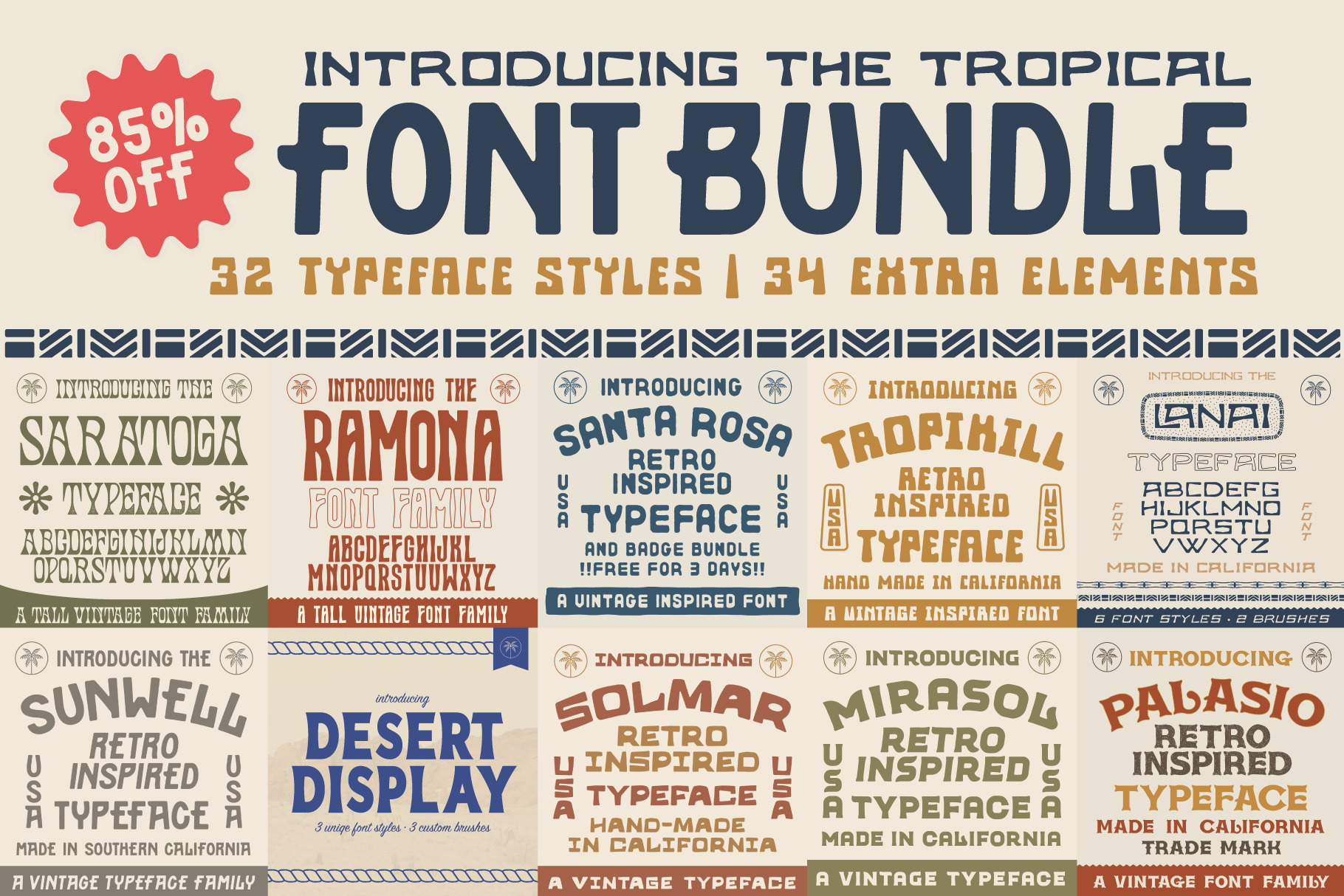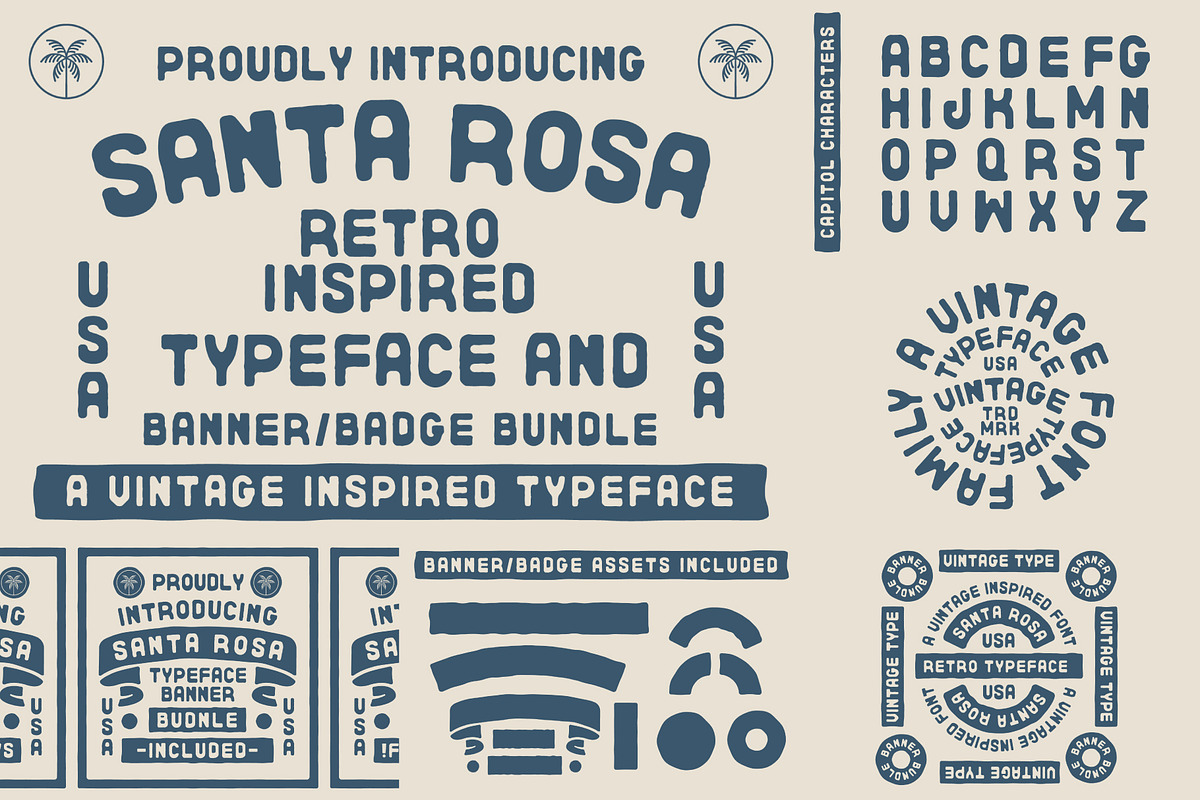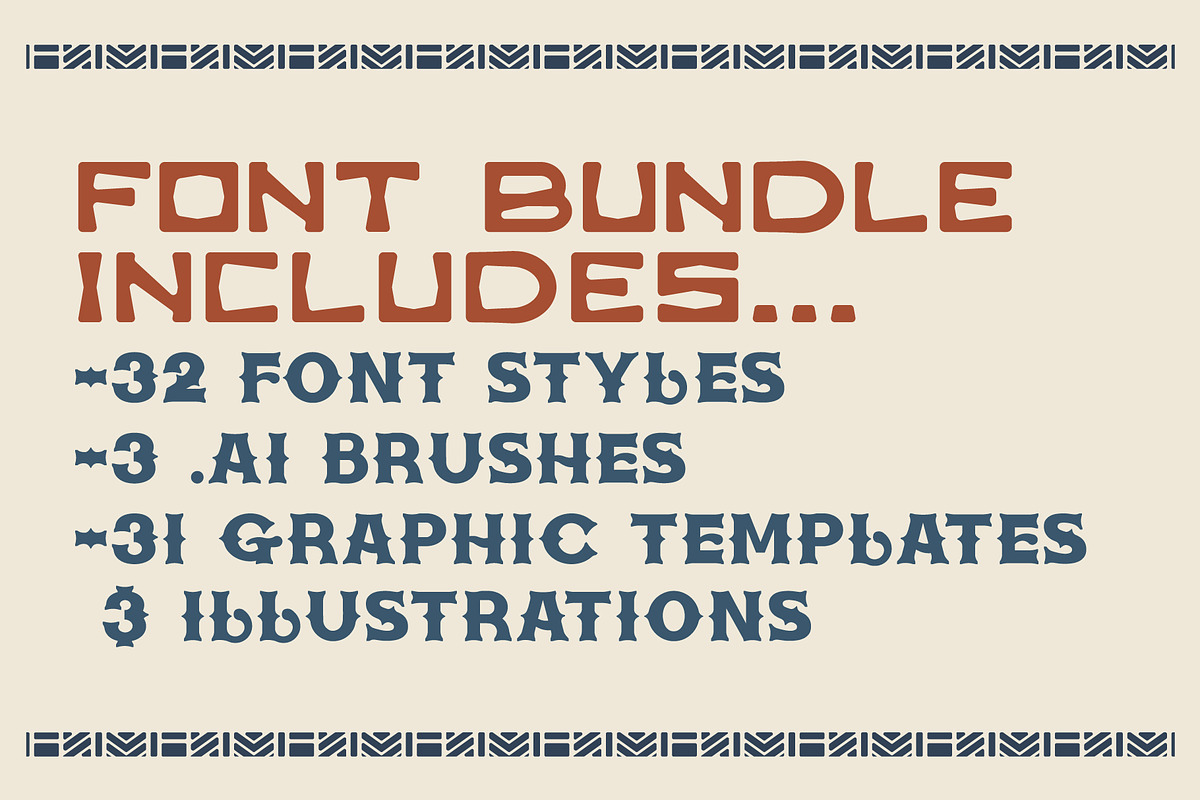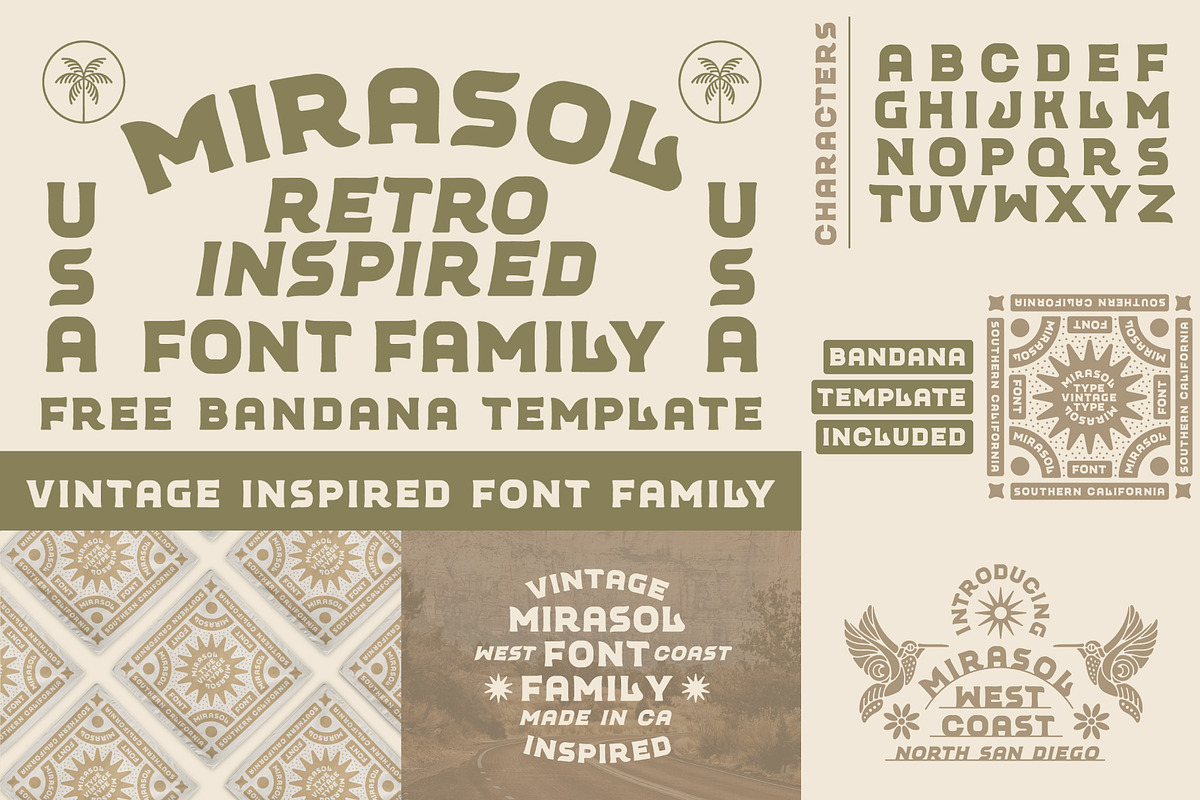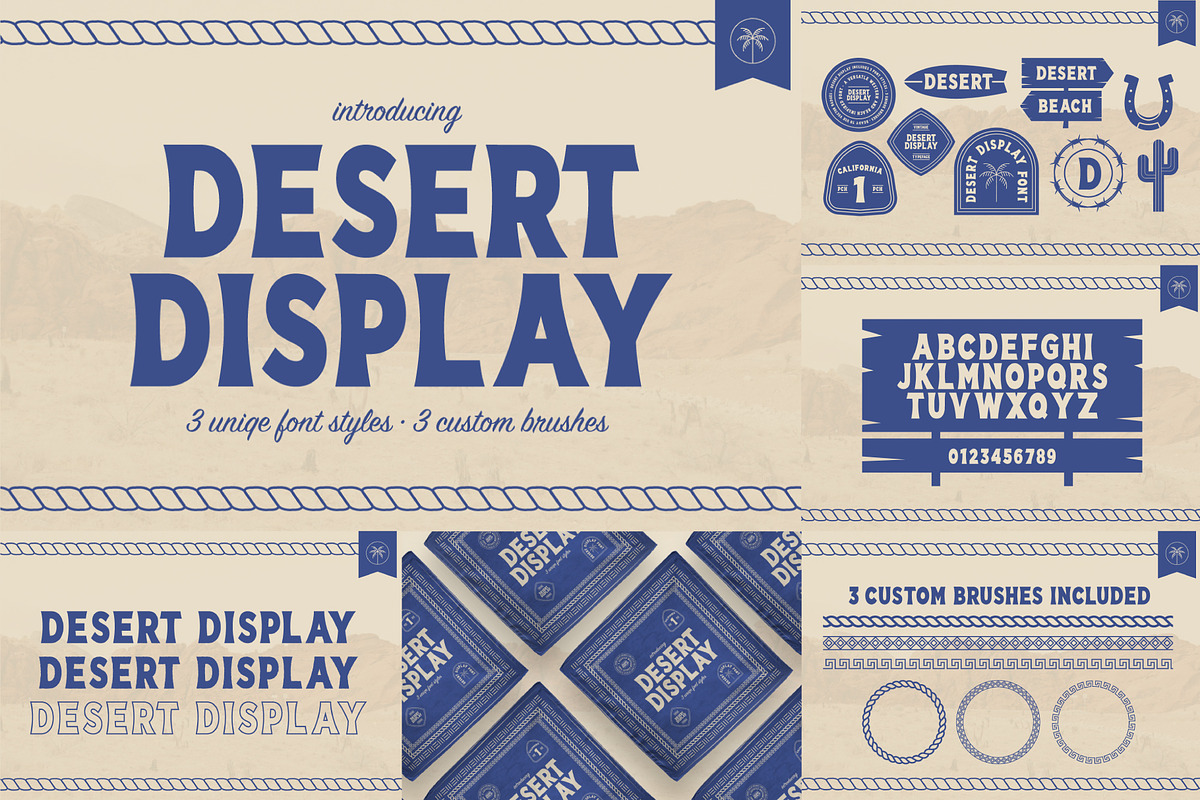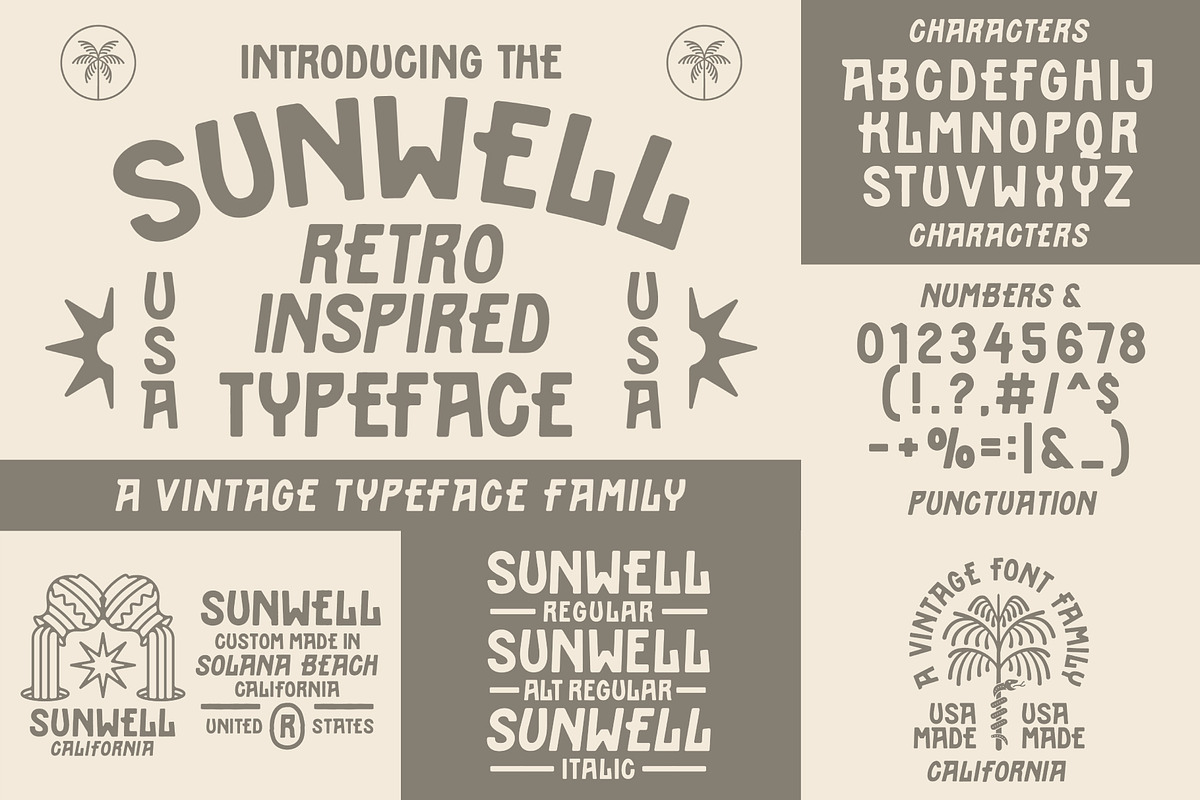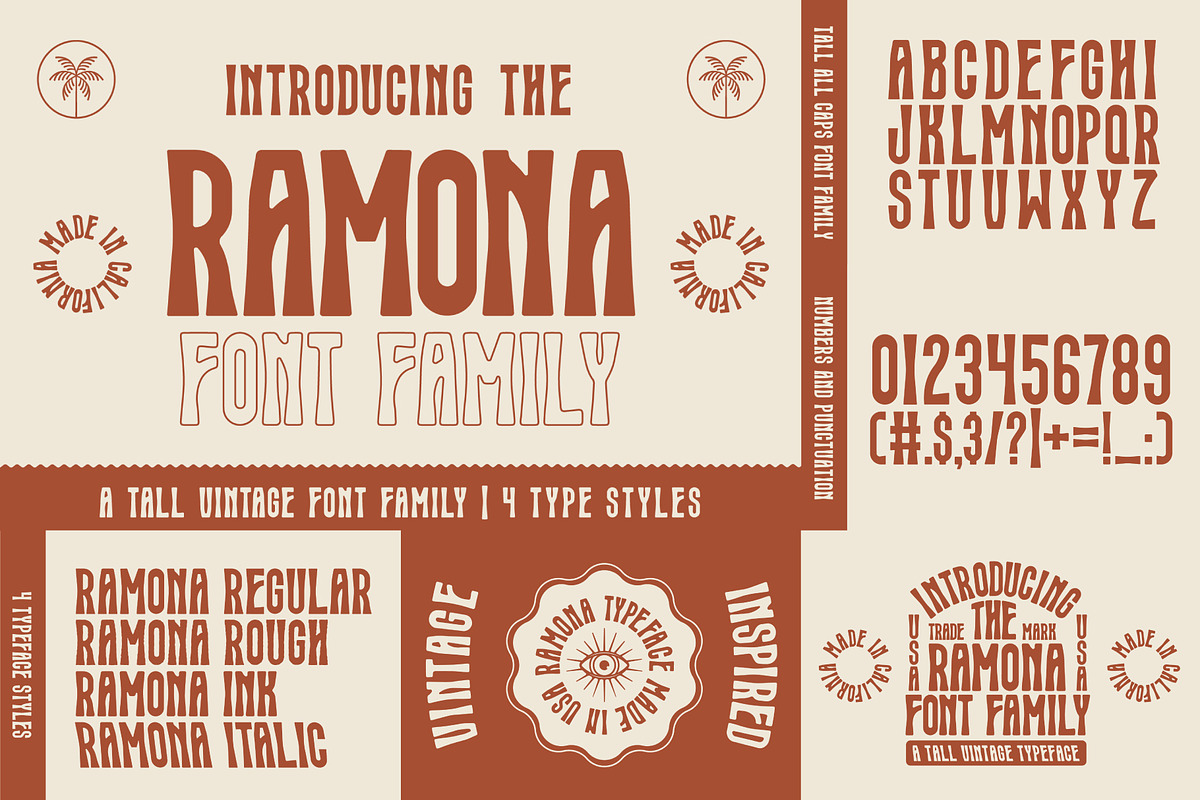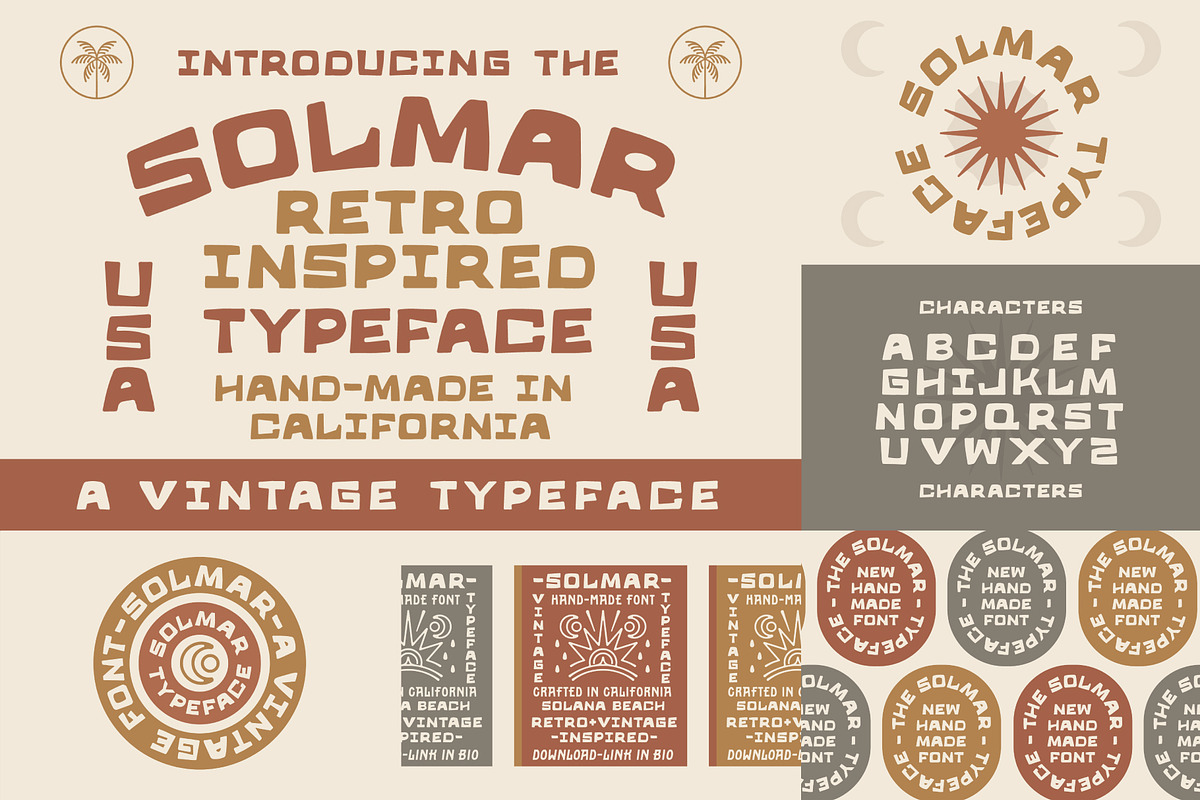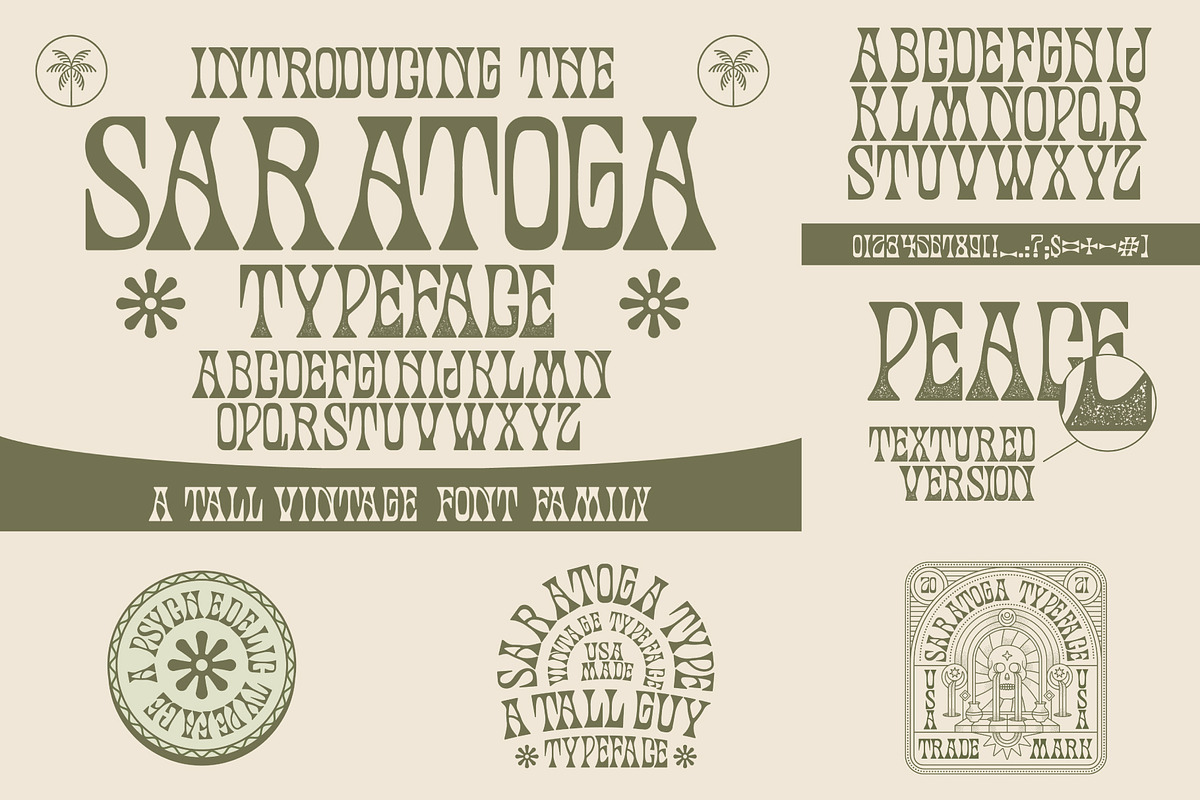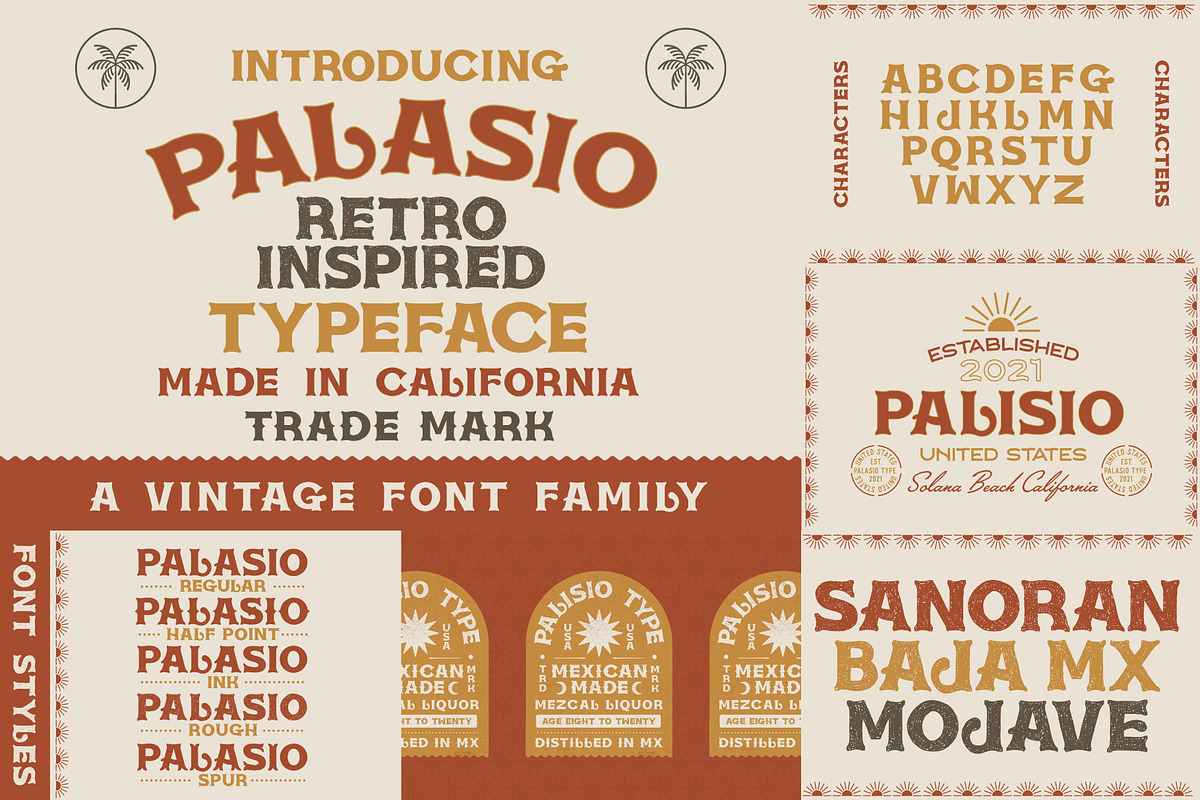
The Tropical Font Bundle
Fonts included are:
This bundle includes the best selling tropical/ island fonts from the shop. Everything you need from fonts, brushes, illustrations, and badge templates are included in this bundle to create a great vintage & tropical design.